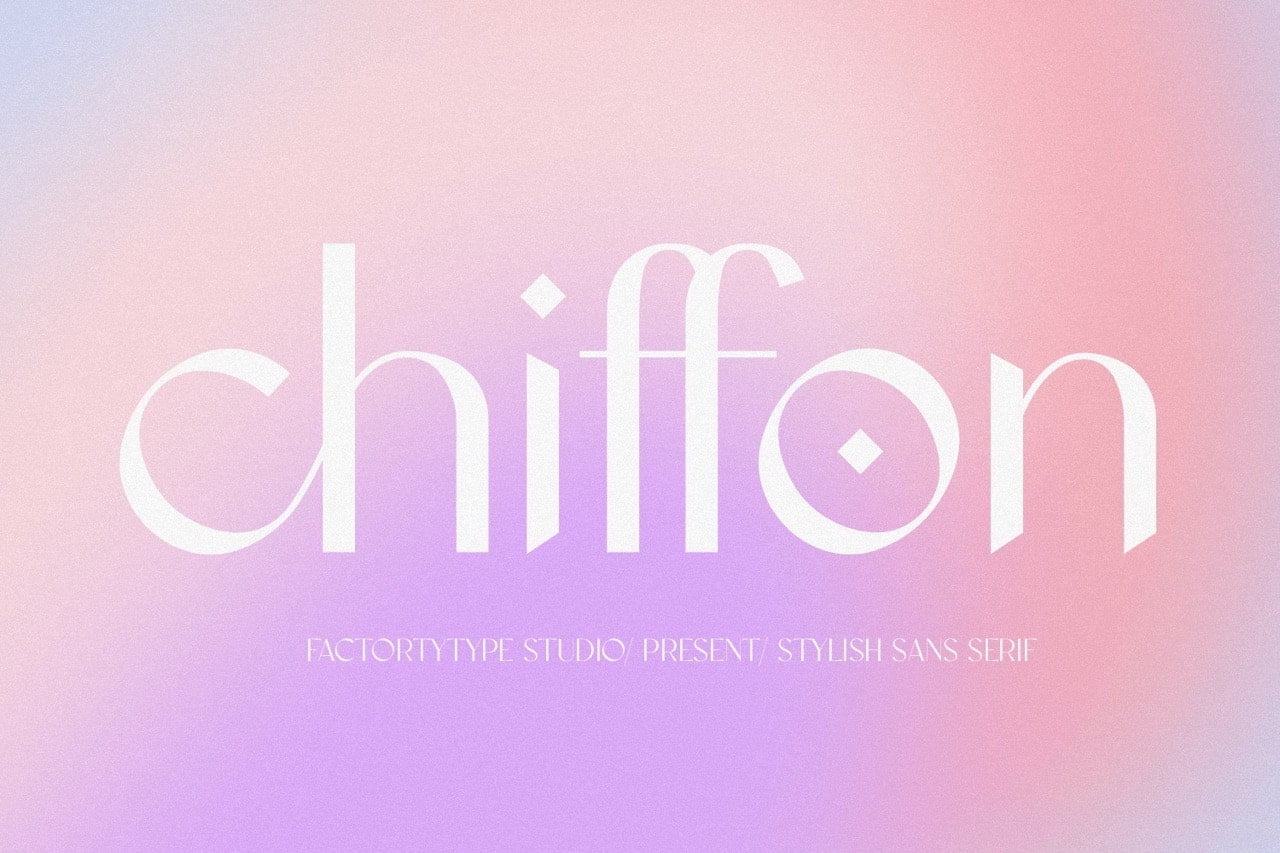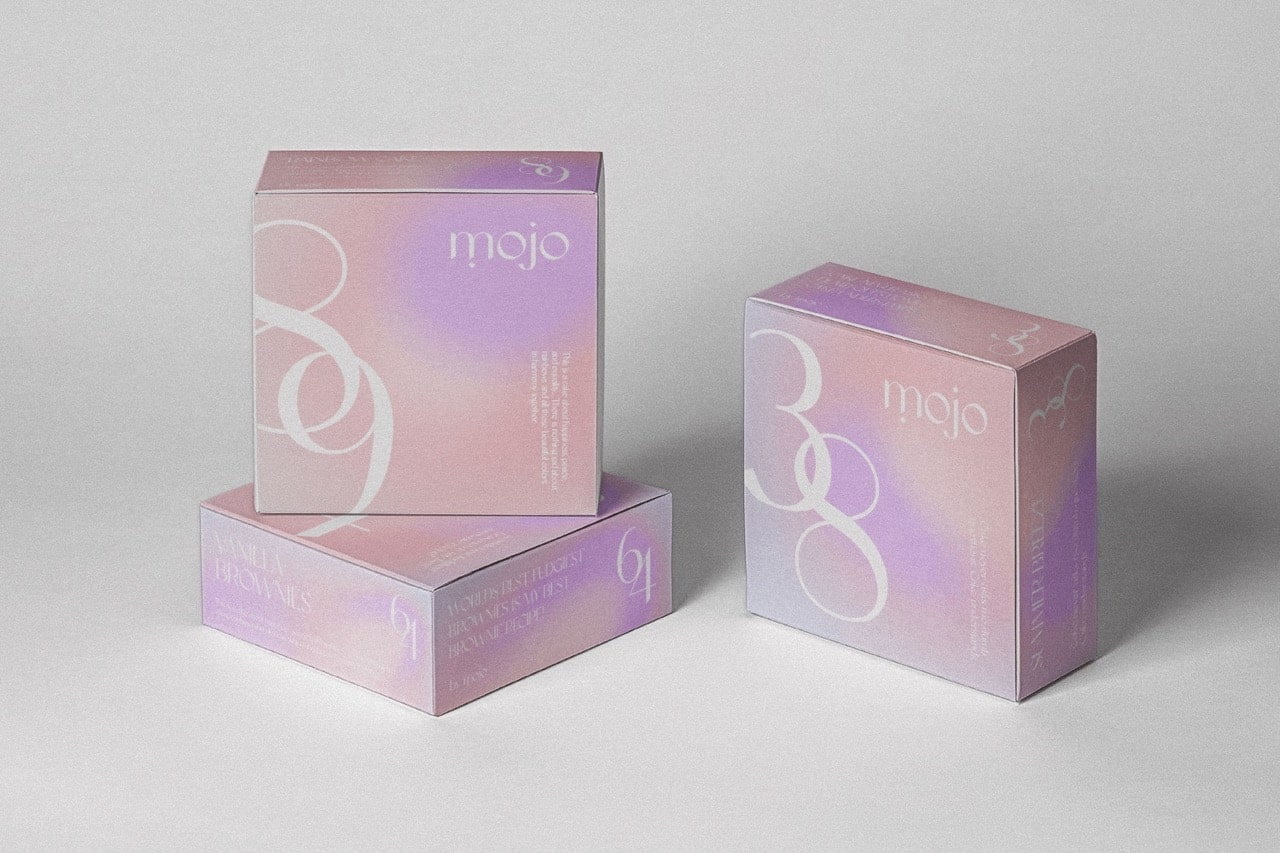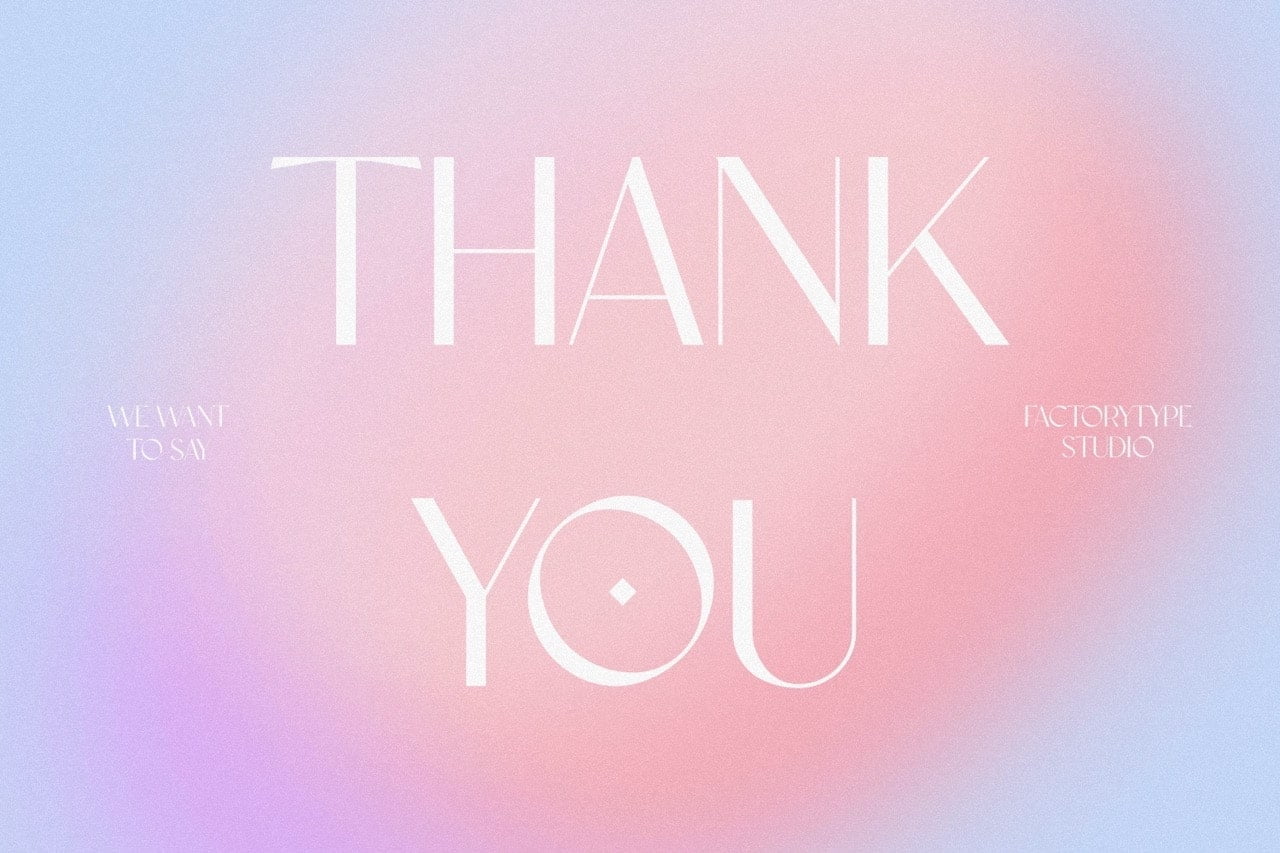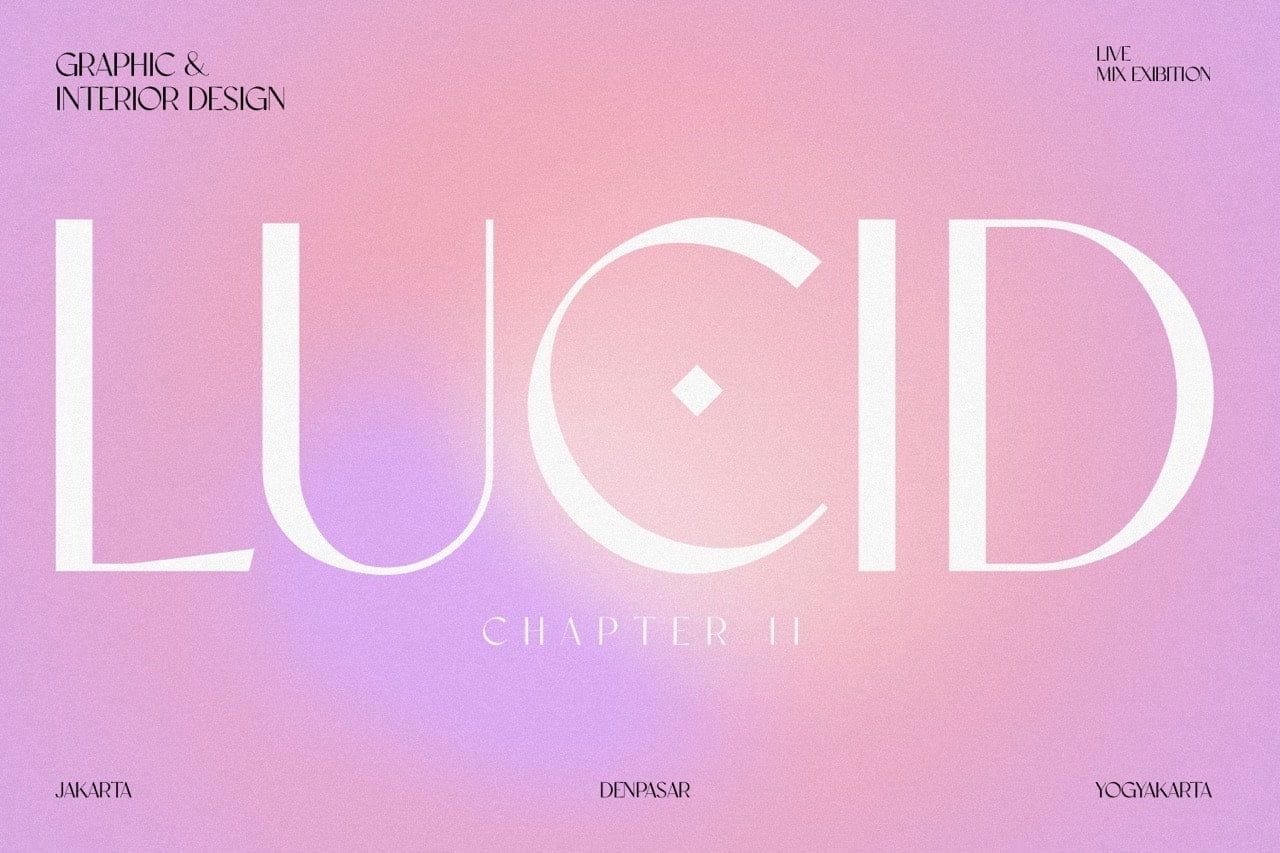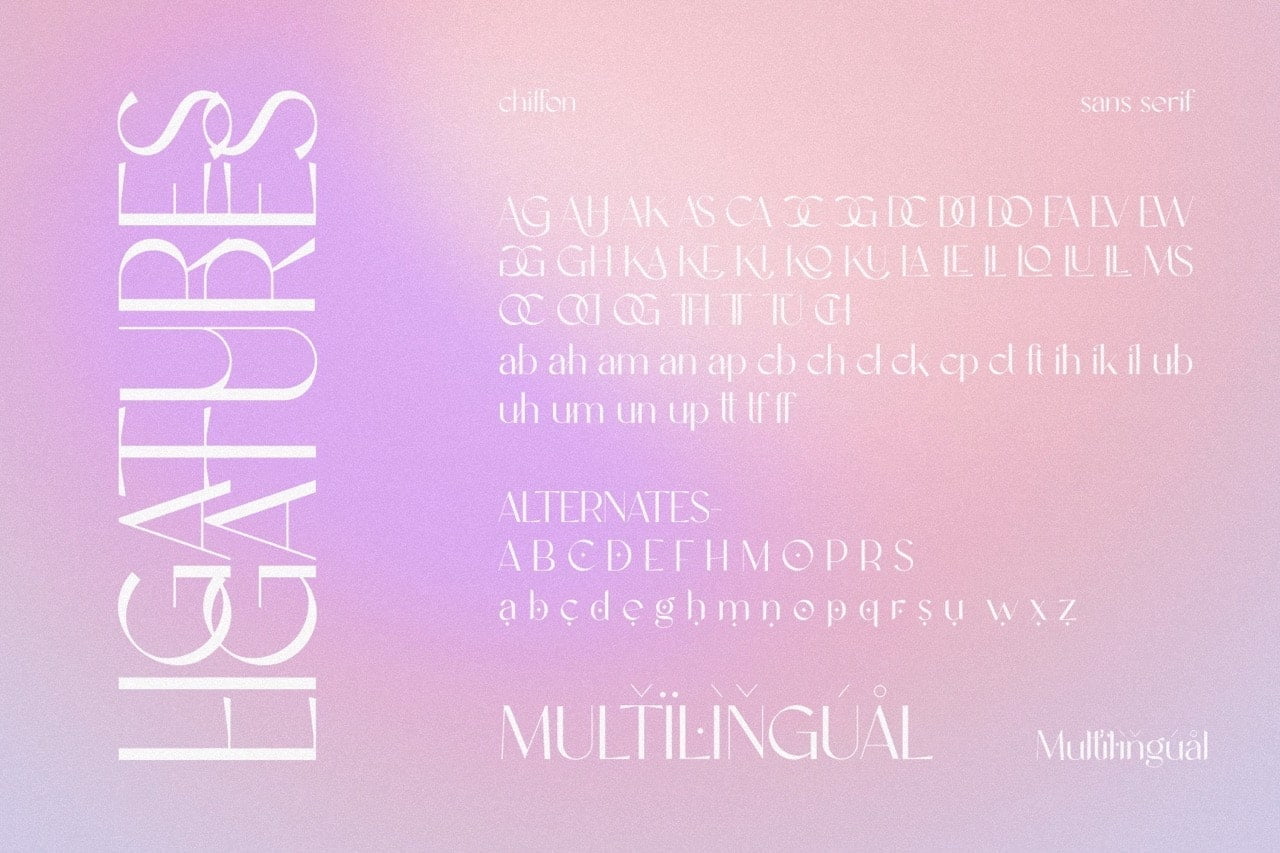
Chiffon is a sexy sans serif font, chock full of feminine grace. If you’re looking for a versatile font that can be used for just about any purpose, chiffon is it.
- Stylistic Ligatures and Alternate Glyphs
Chiffon Sans